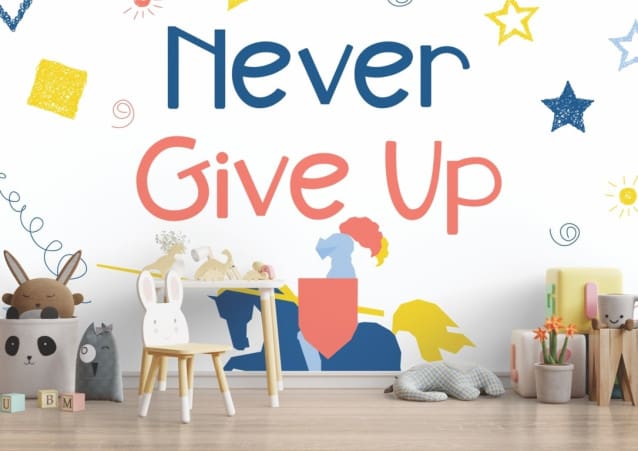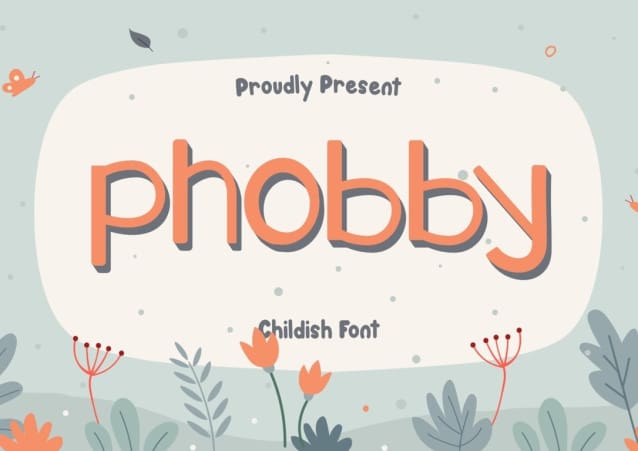
Phobby Display Font
Phobby Display Font, an enchanting typeface that ignites infinite creativity through its wide range of combinations. Infuse your designs with a delightful and captivating style, and witness them come alive with vibrant colors, exuding happiness and enthusiasm. This charming font is the perfect choice for adding a whimsical touch to projects aimed at children. Embrace the magic of Phobby Font and unleash the limitless potential of your imagination.